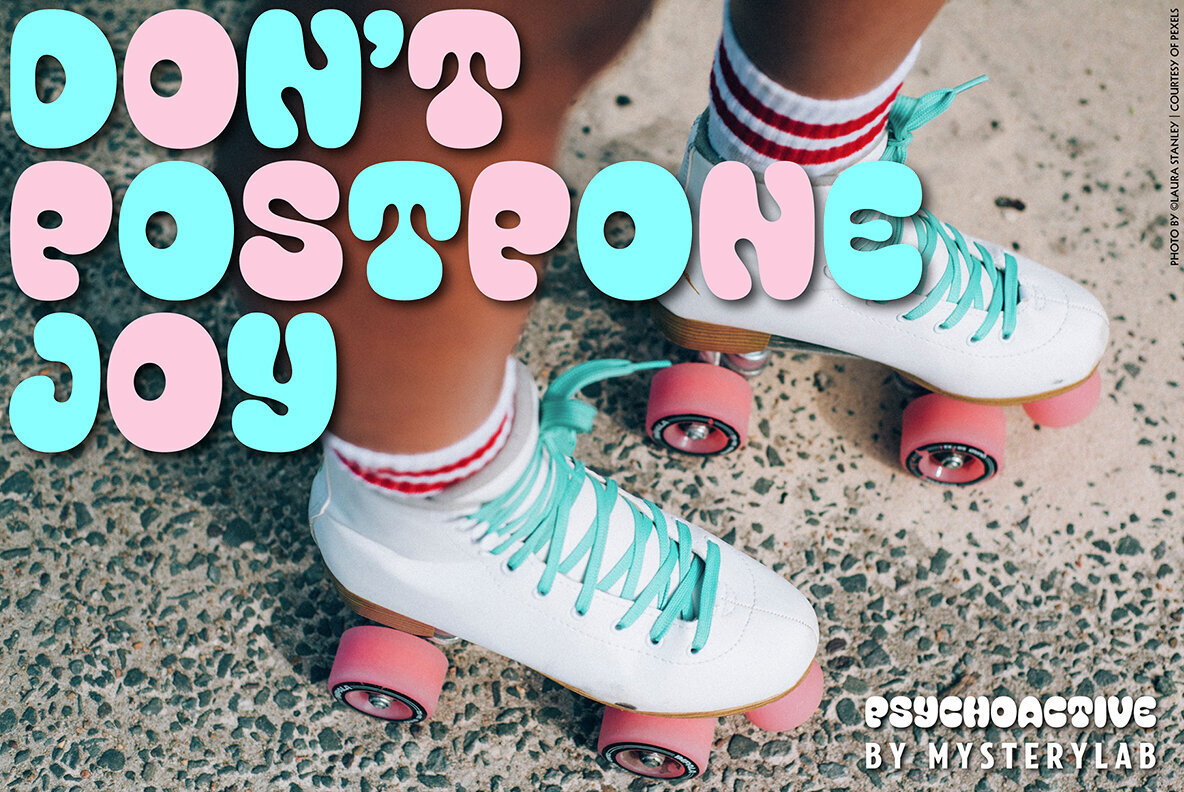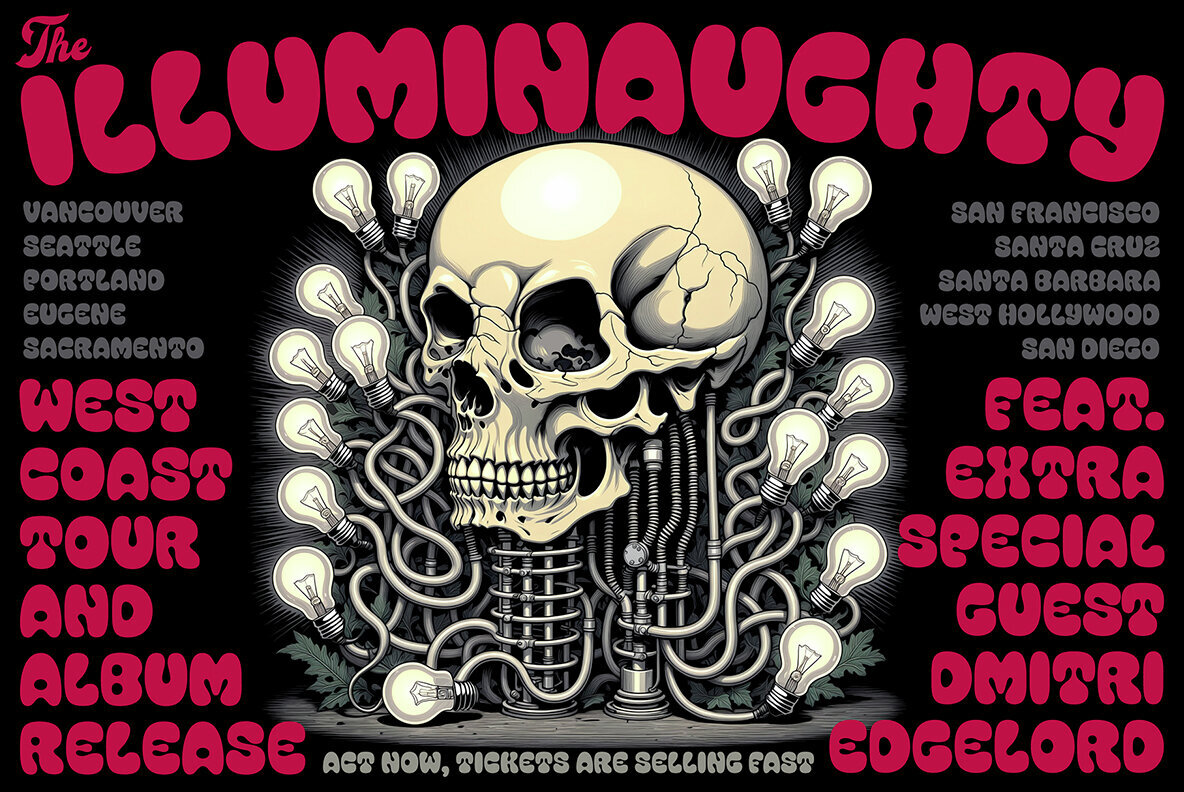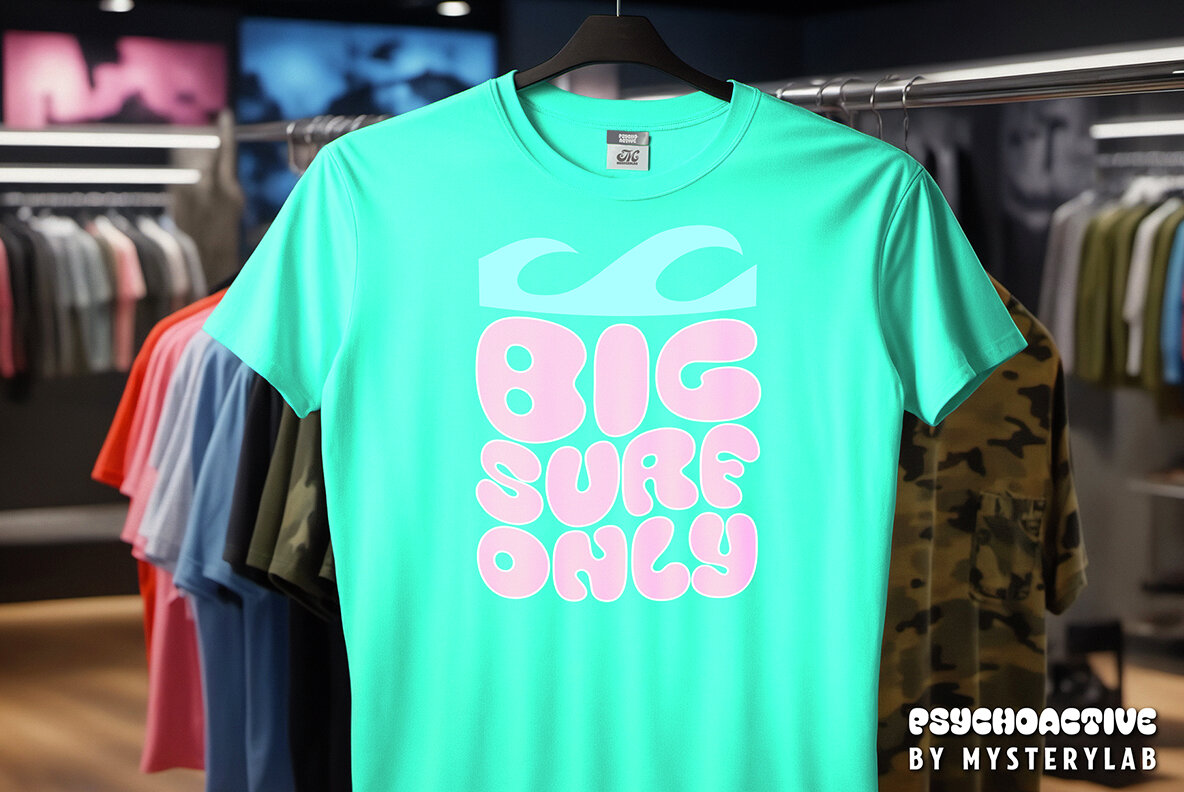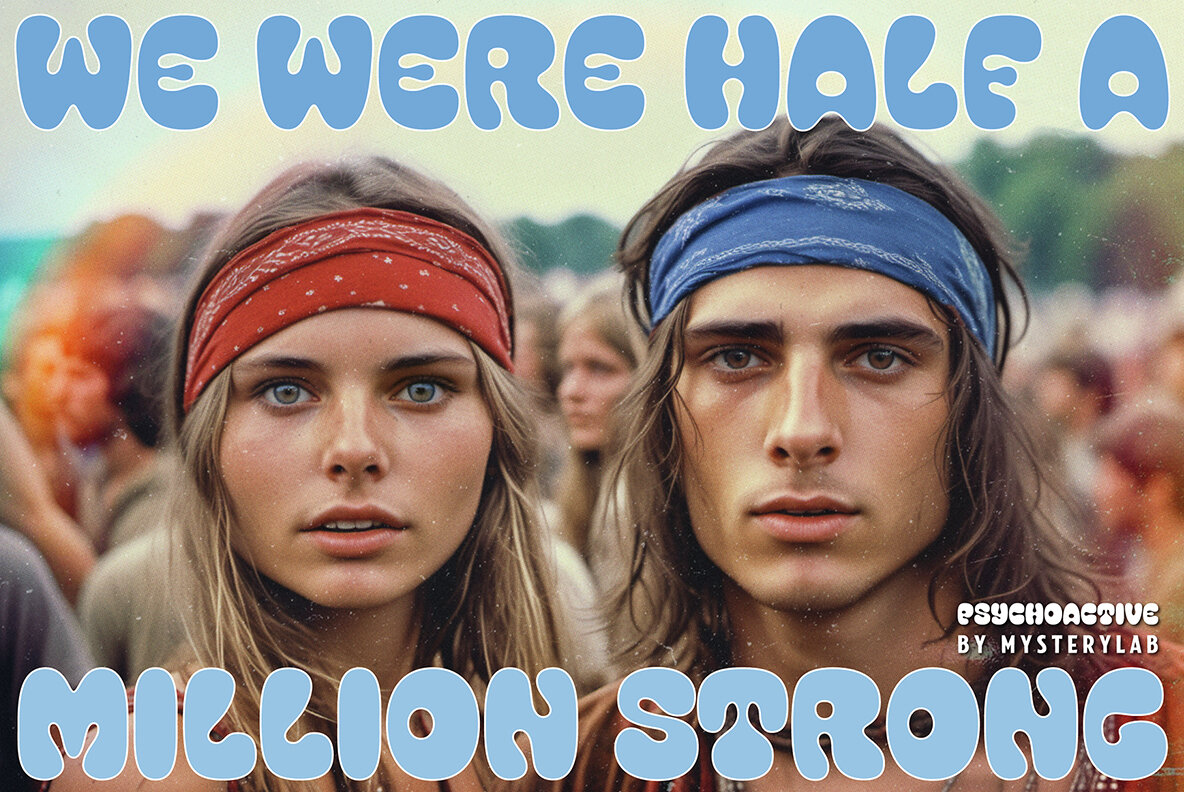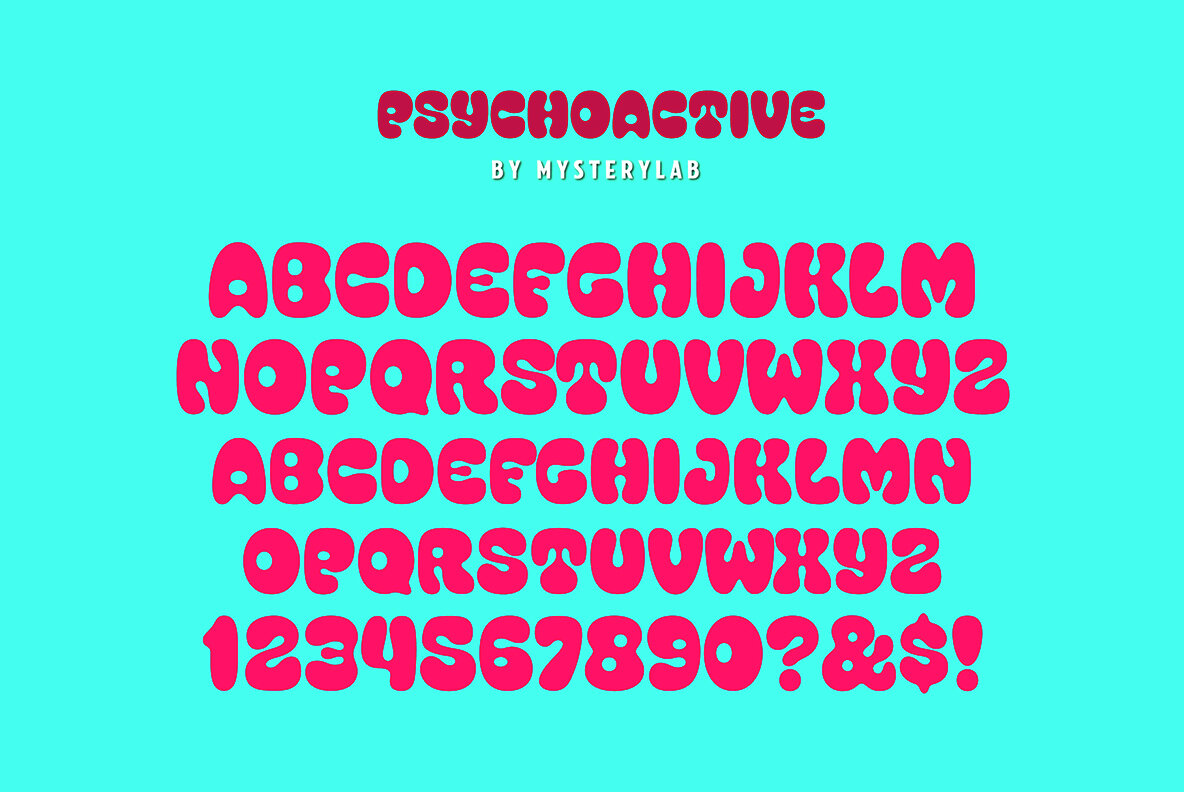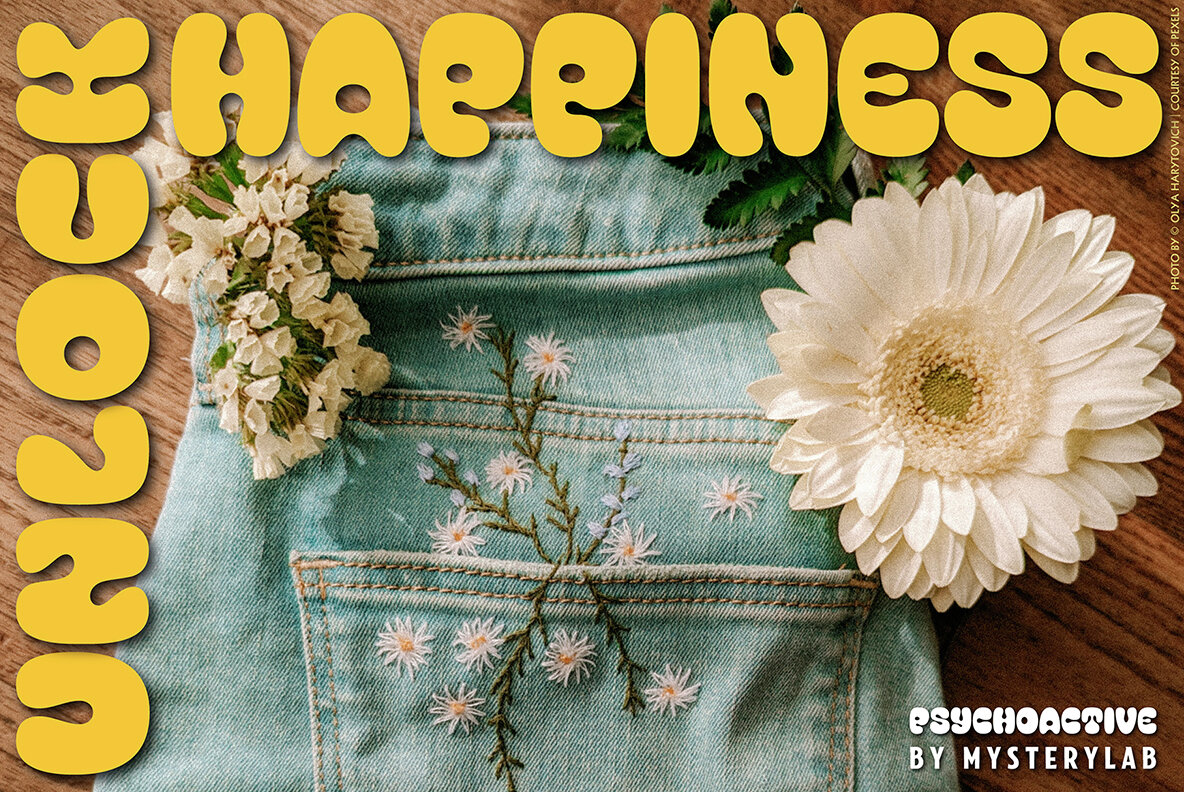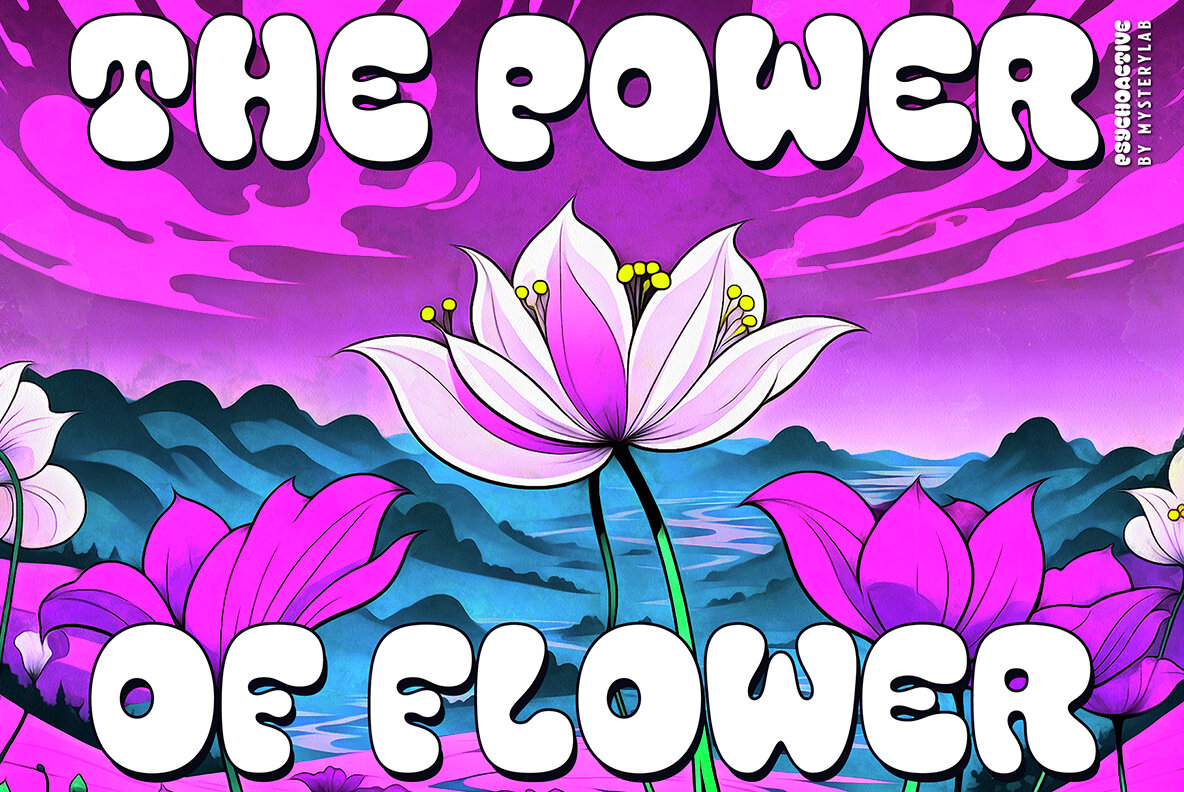
Psychoactive Font
Psychoactive Regular
Psychoactive is a familiar style of pop psychedelic lettering; reinvented, fine-tuned, and balanced to rounded blobs of perfection. This all-caps + small-caps font is a great workhorse for retro t-shirt designs, posters, and album covers. Super-legible and perfectly kerned, it'll get your message out in style.